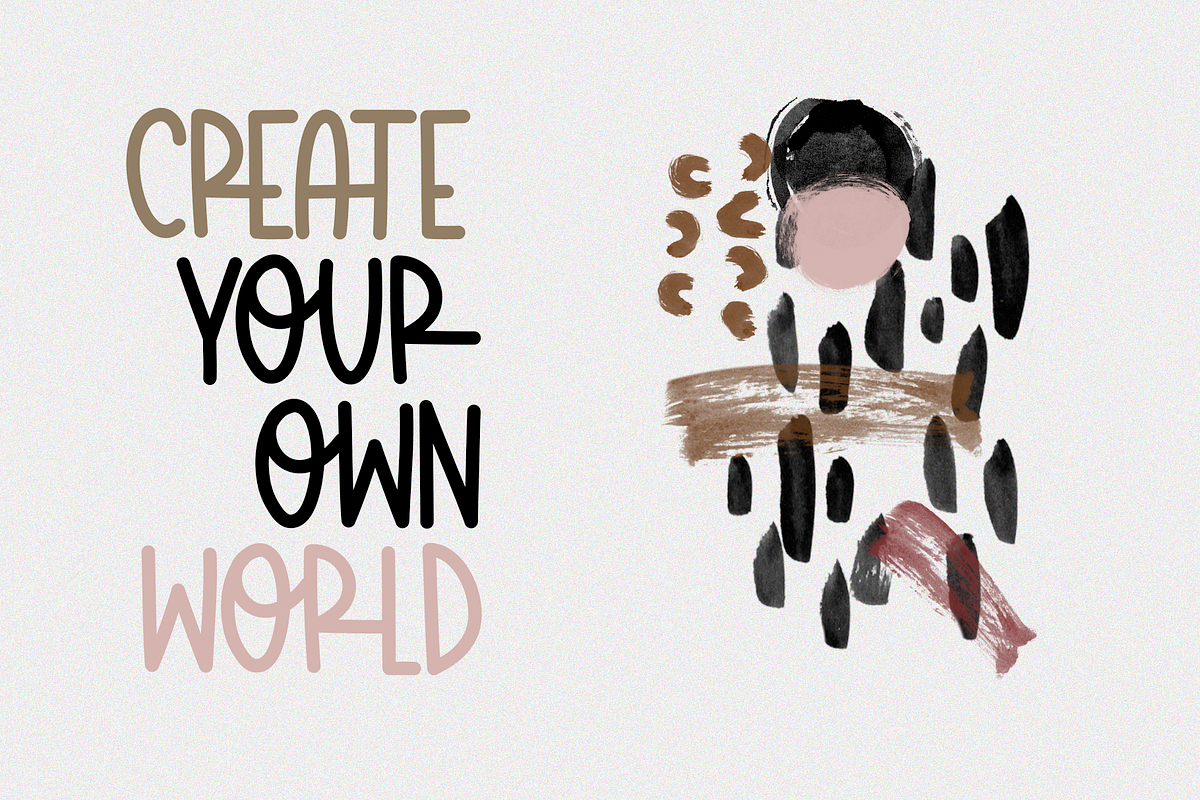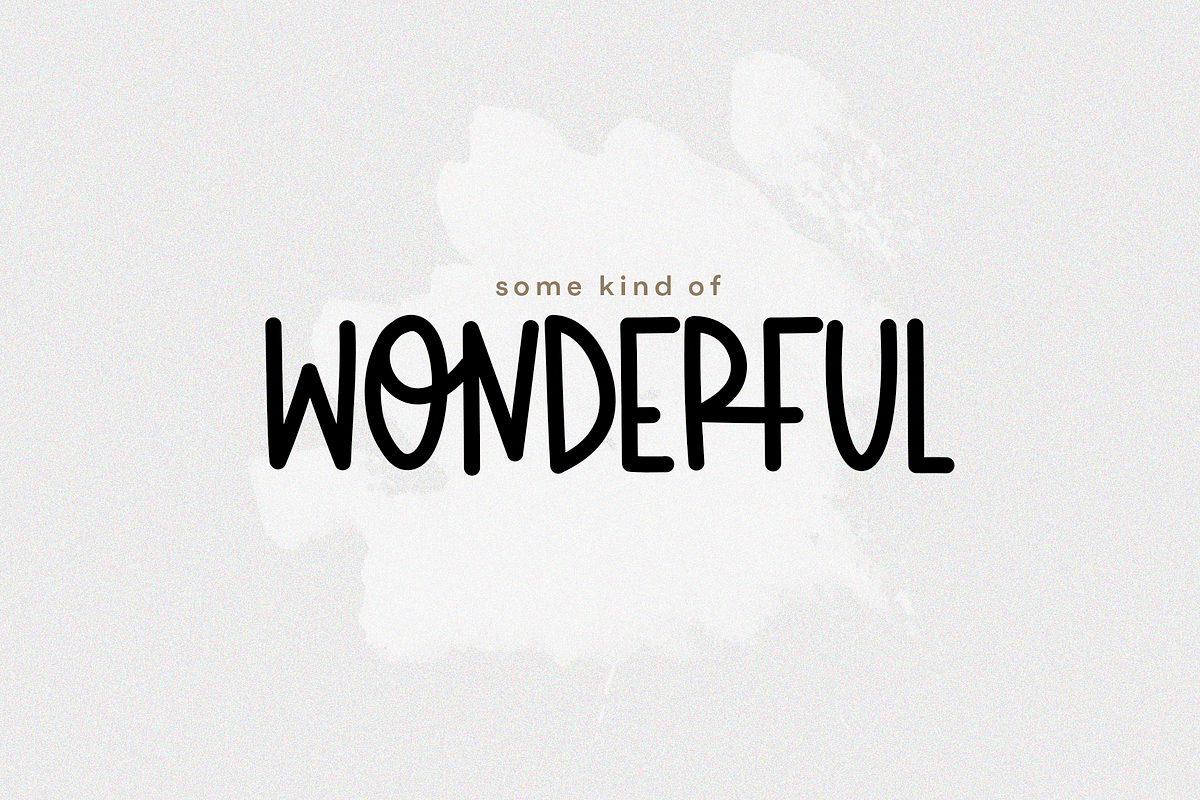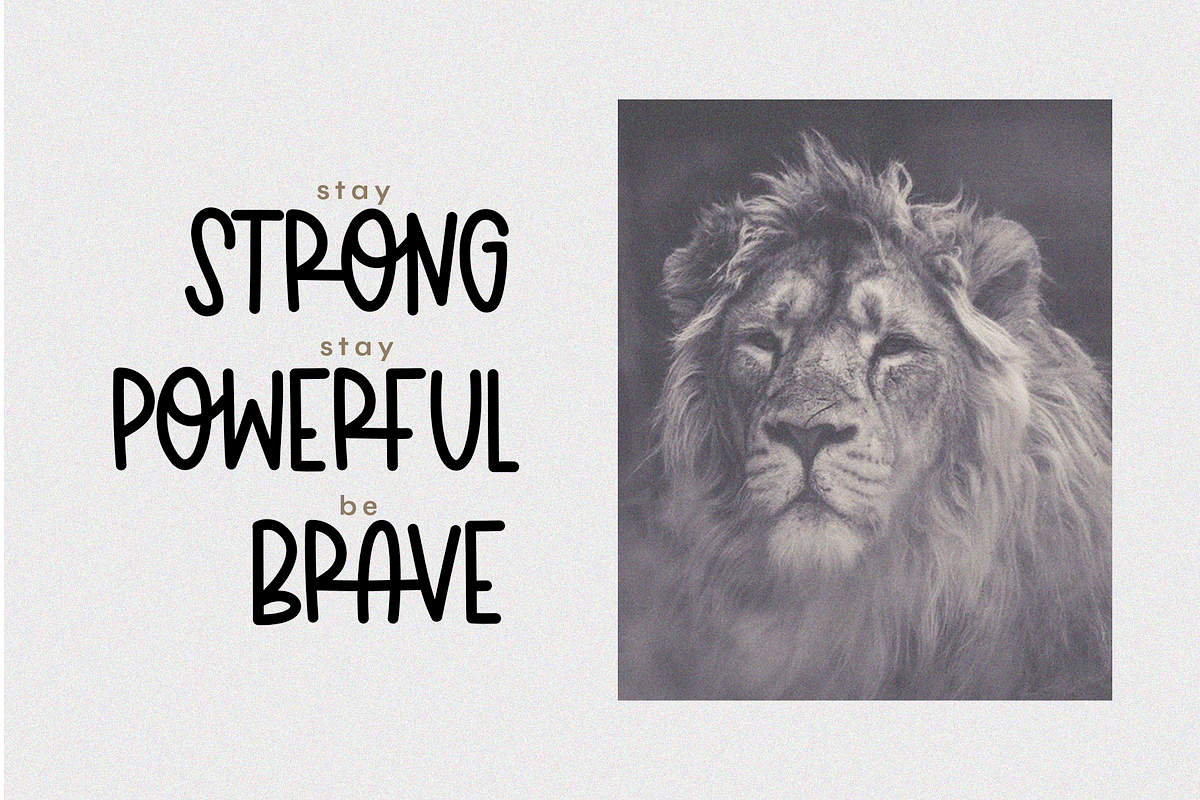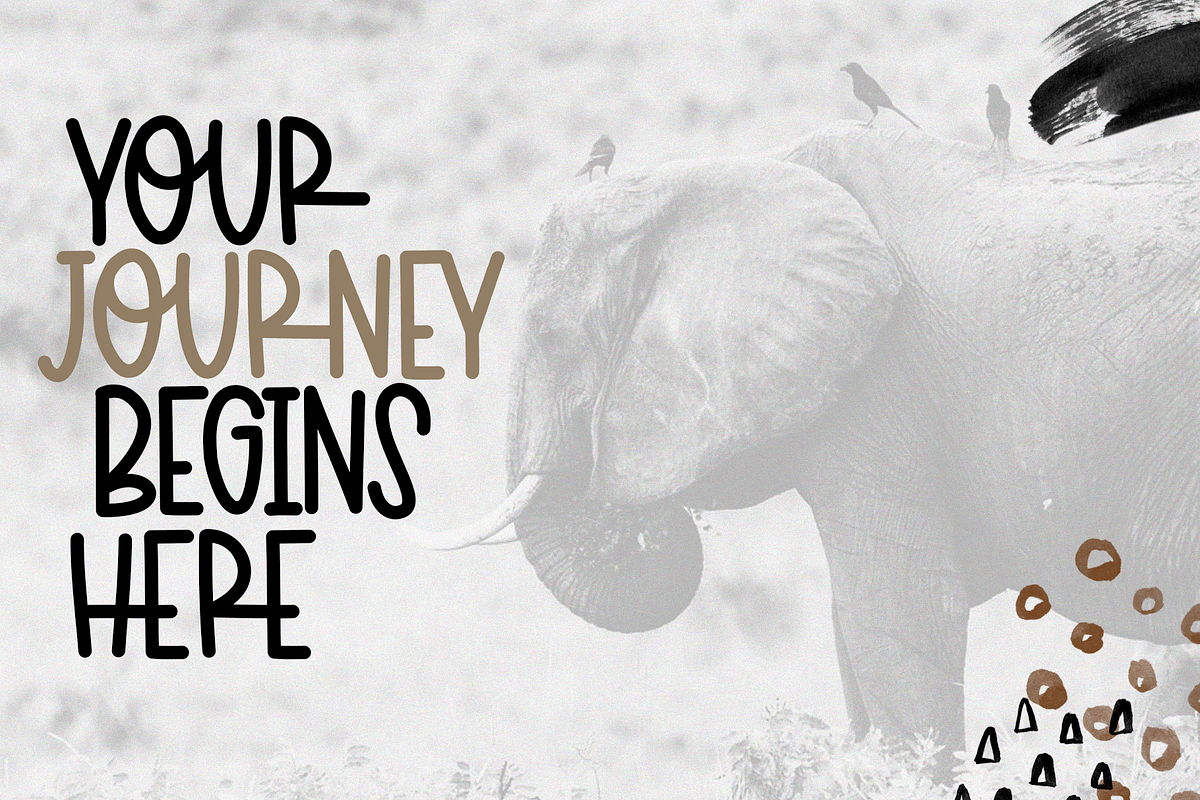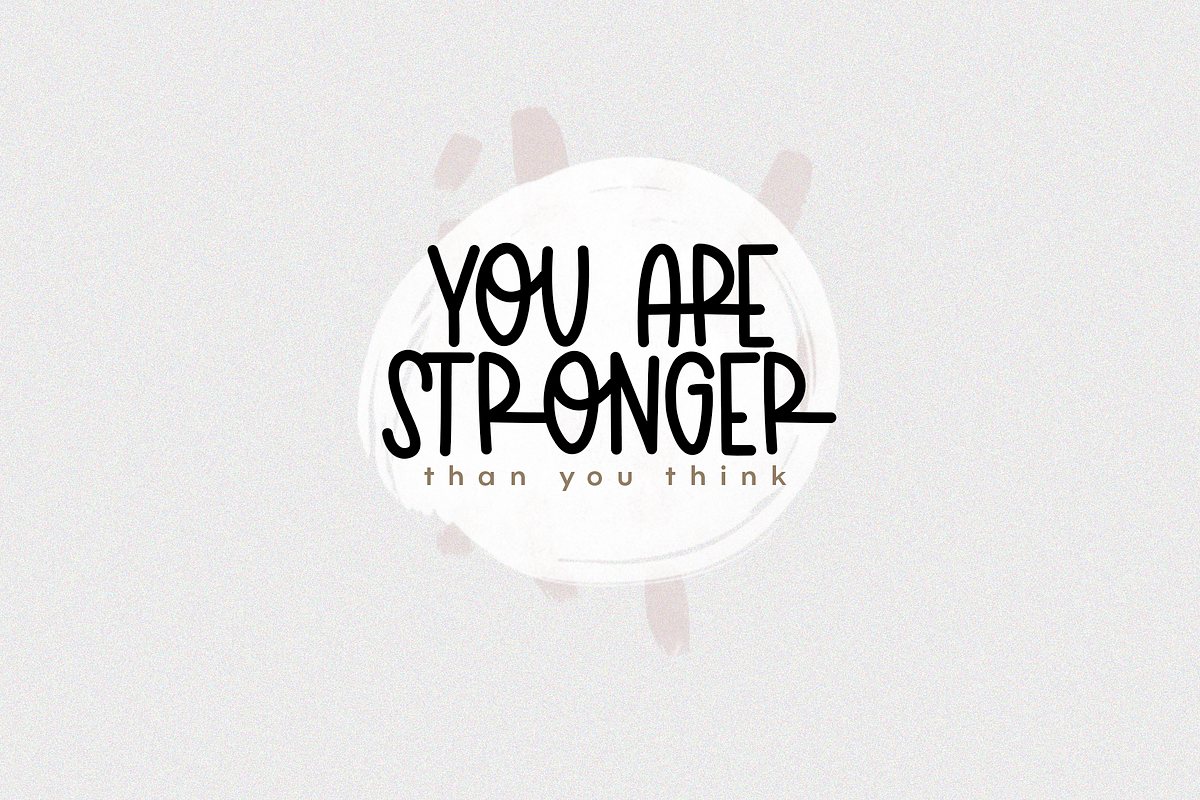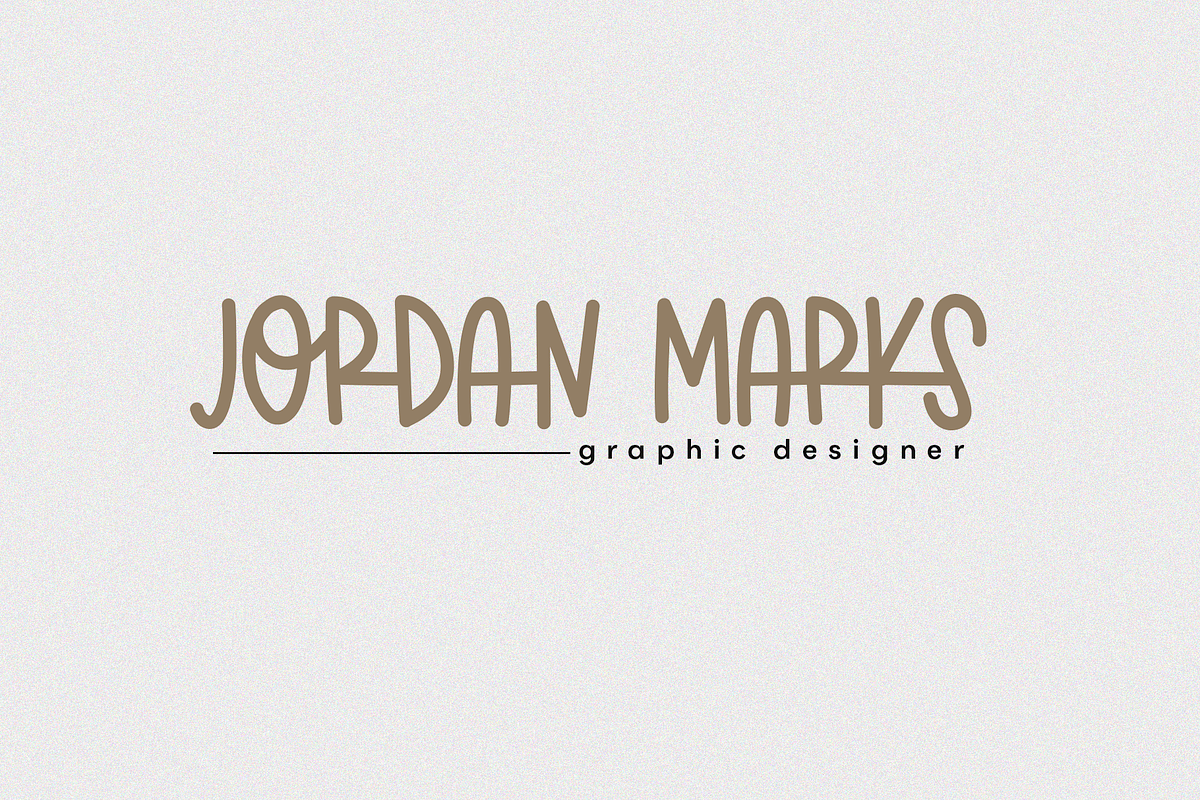
Marvelous - A Handwritten Font
Marvelous is a fun & quirky handwritten font.
This font is perfect for quotes, shirts, mugs, headings, logos, invitations and more!
Marvelous - A Handwritten Font by KA Designs fits naturally into Branding, posters, packaging, typography.